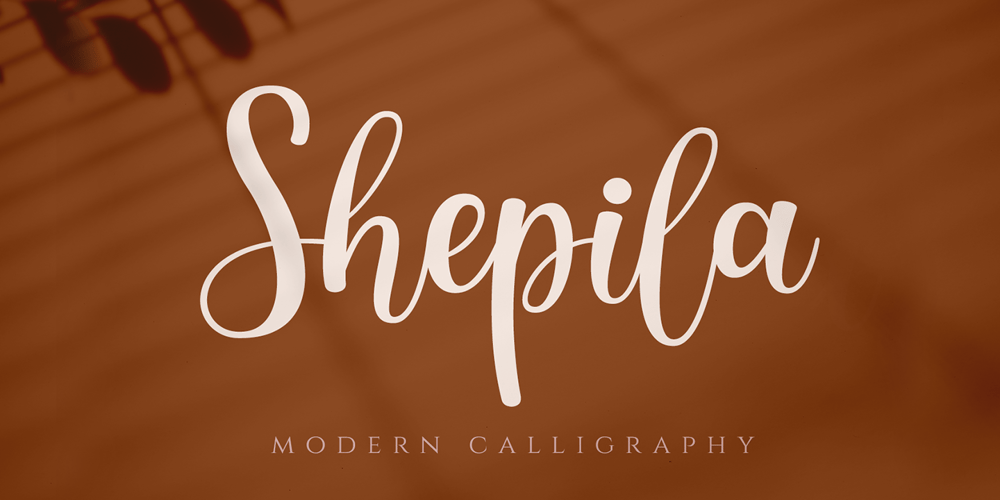
Shepila
Shepila font
Shepila Font Family was designed by Anton Cahyono and published by Motokiwo. Shepila contains 1 styles and family package options. Shepila is a beautiful, modern and elegant calligraphy script. And is perfect for weddings, fashion, brands, blogs, boutiques or any business that wants to appear upscale and pretty.Features: Uppercase & Lowercase Standard Ligatures Contextual Alternates Numerals & Punctuations (OpenType Standard) Multilingual characters (AÀÁÂÃÄÅÇEÈÉÊËIÌÍÎÏNÑOØÒÓÔÕÖUÙÜÚÛÝŸÆŒß) PUA Encoded